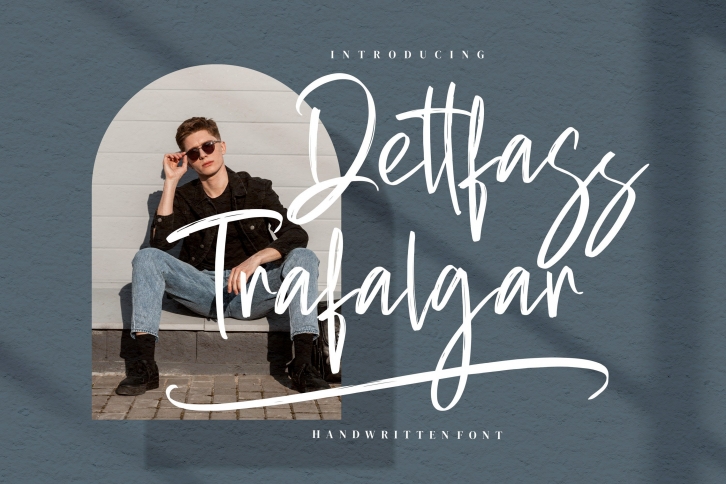
Dettfass Trafalgar is a beautiful and cursive brushed handwritten font, with a unique feel and a stunning impact. It will add a luxury spark to any design project that you wish to create!